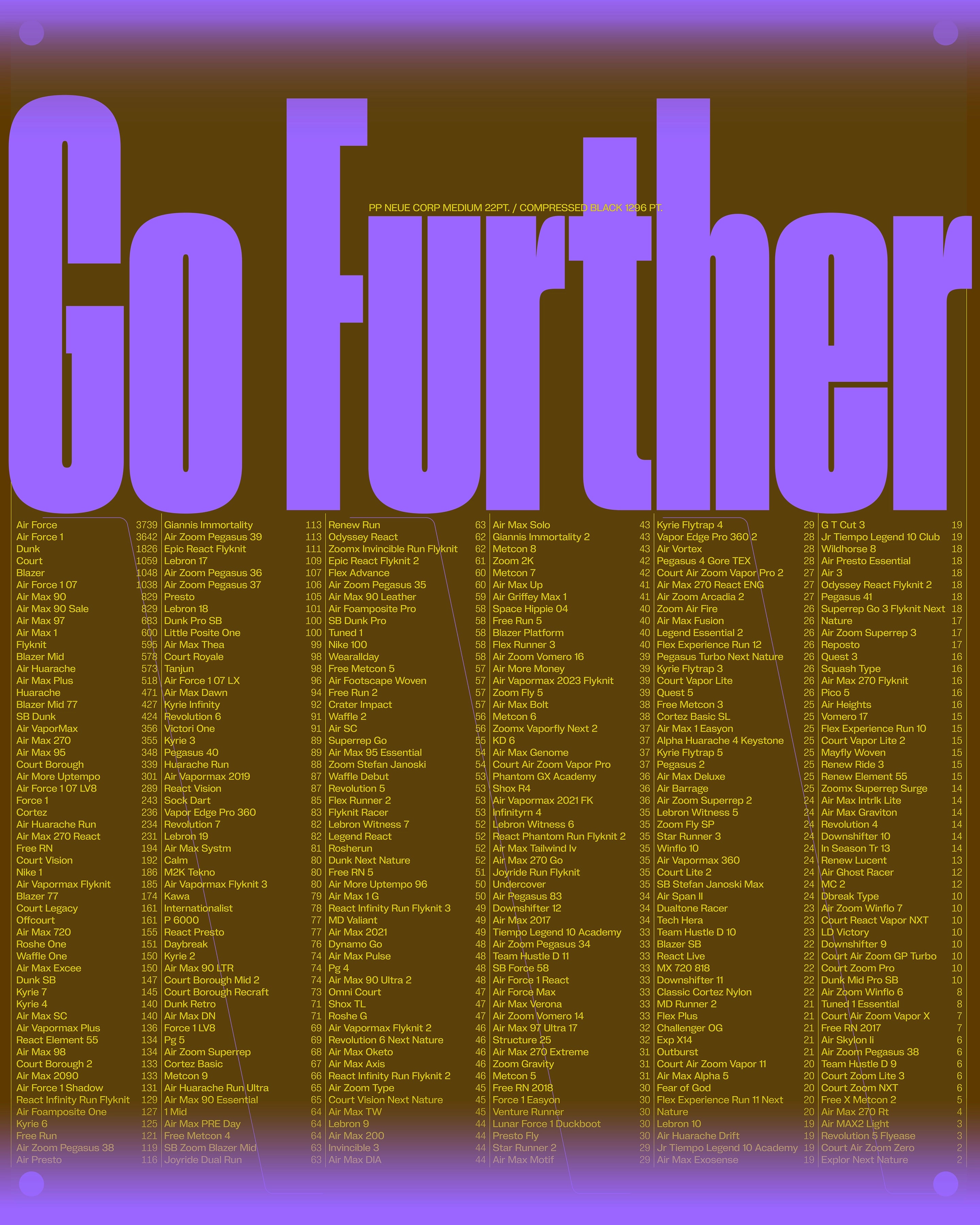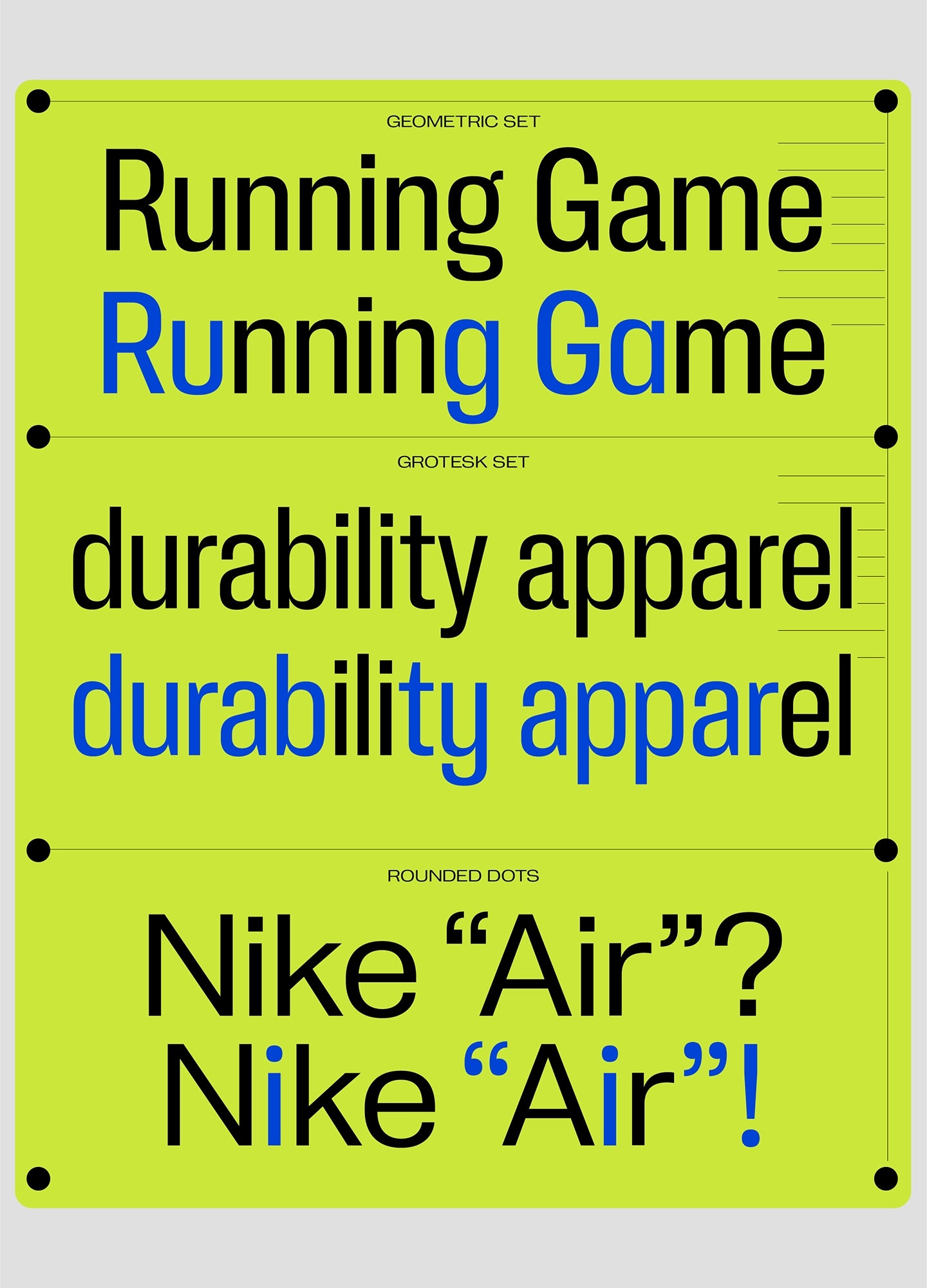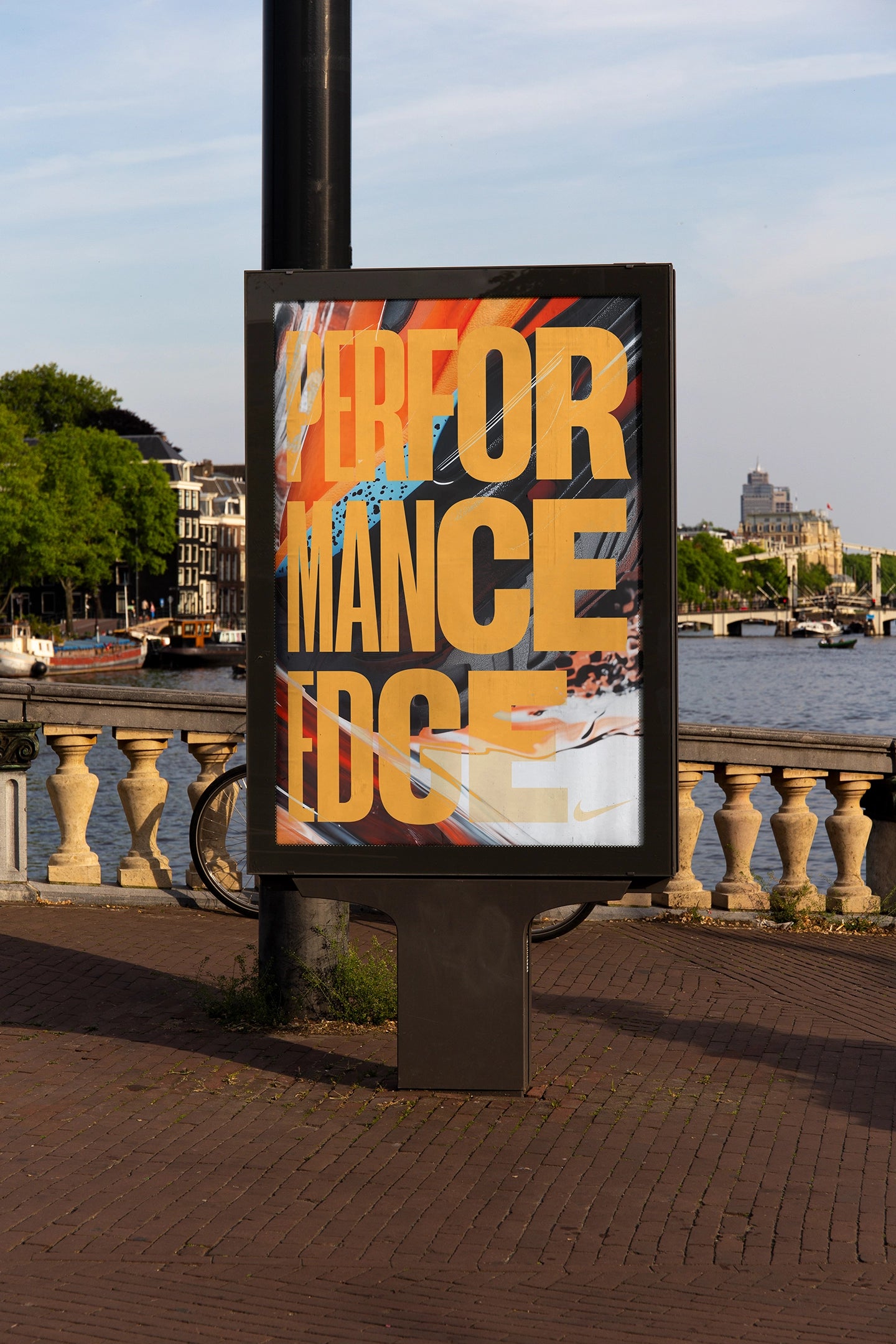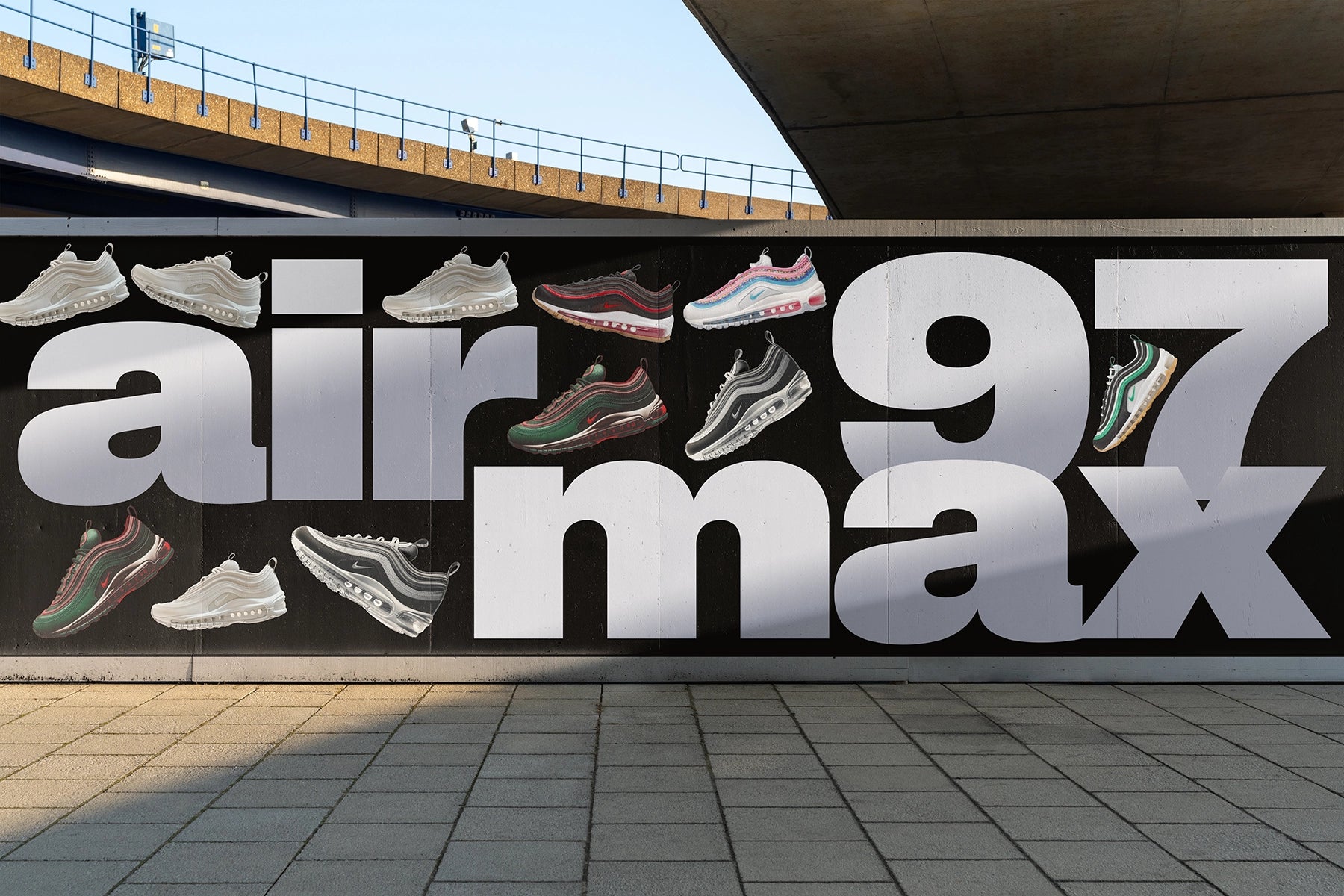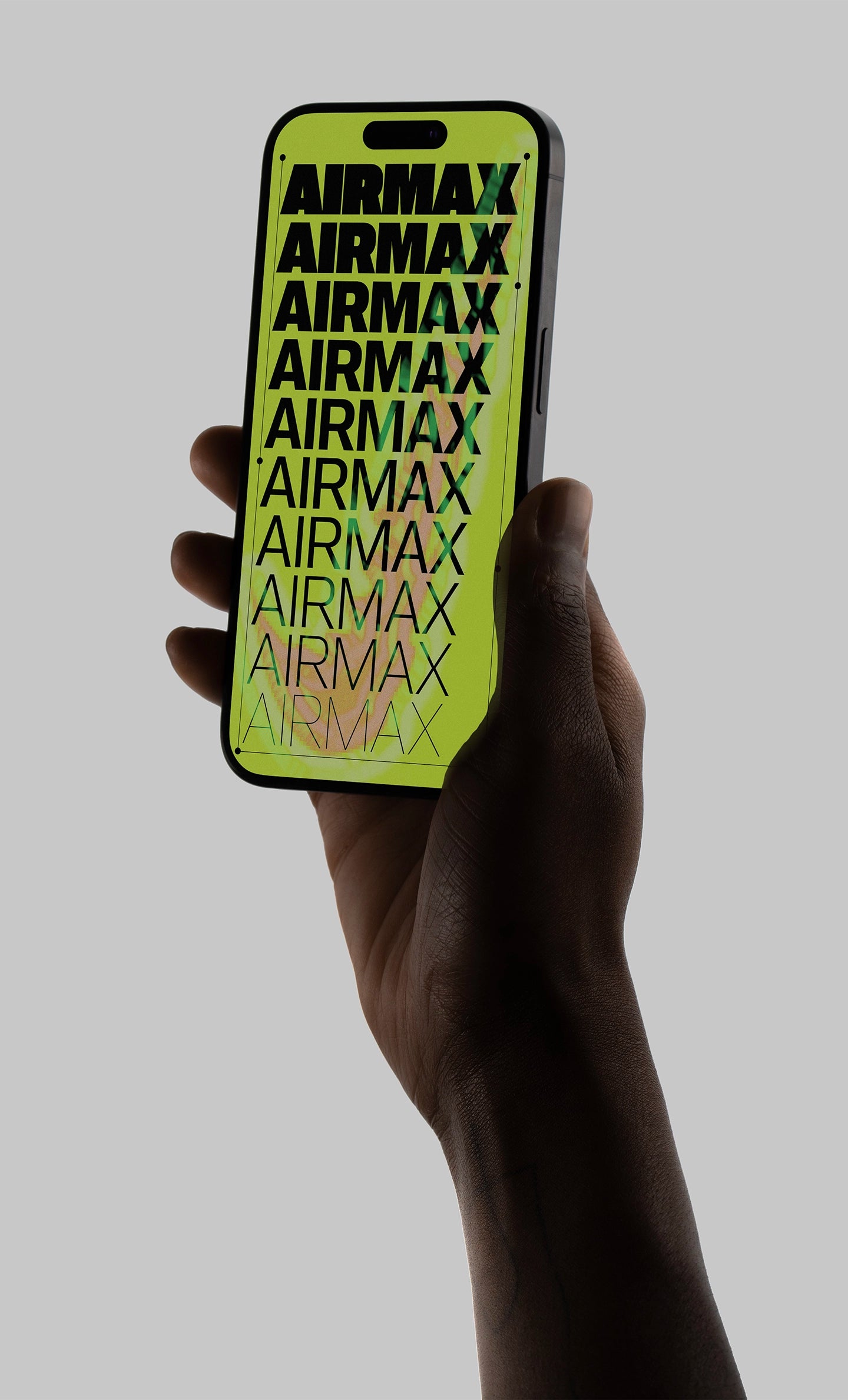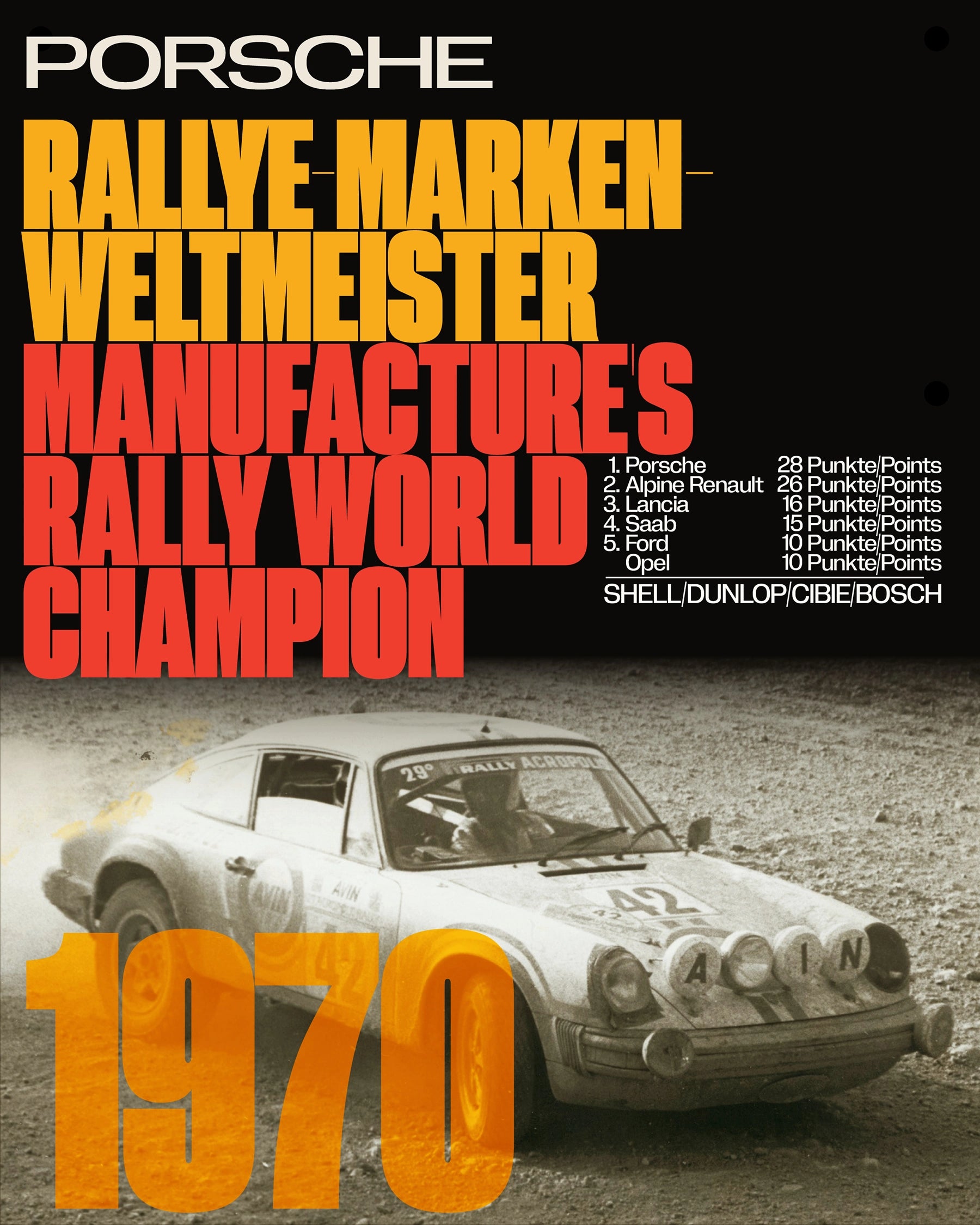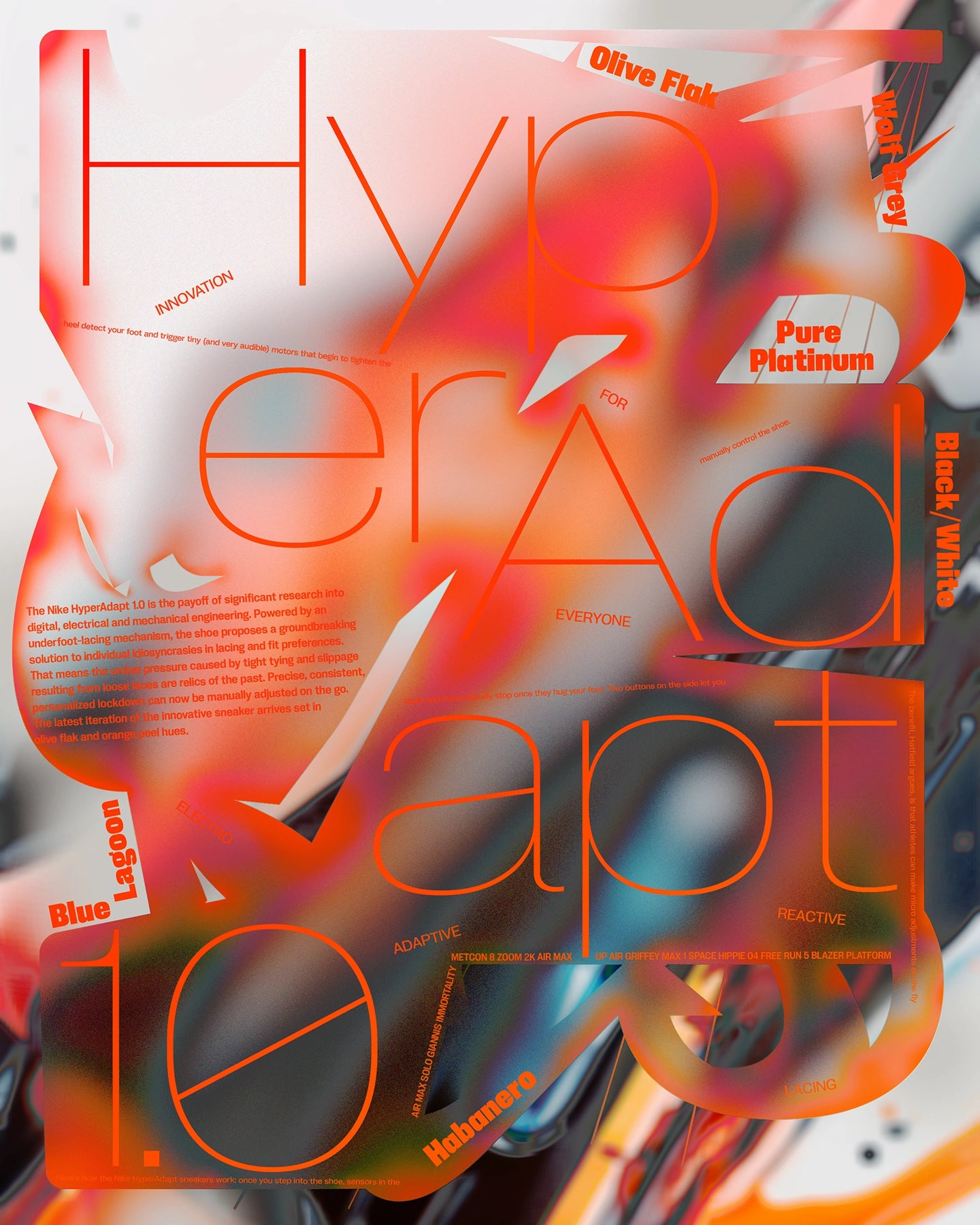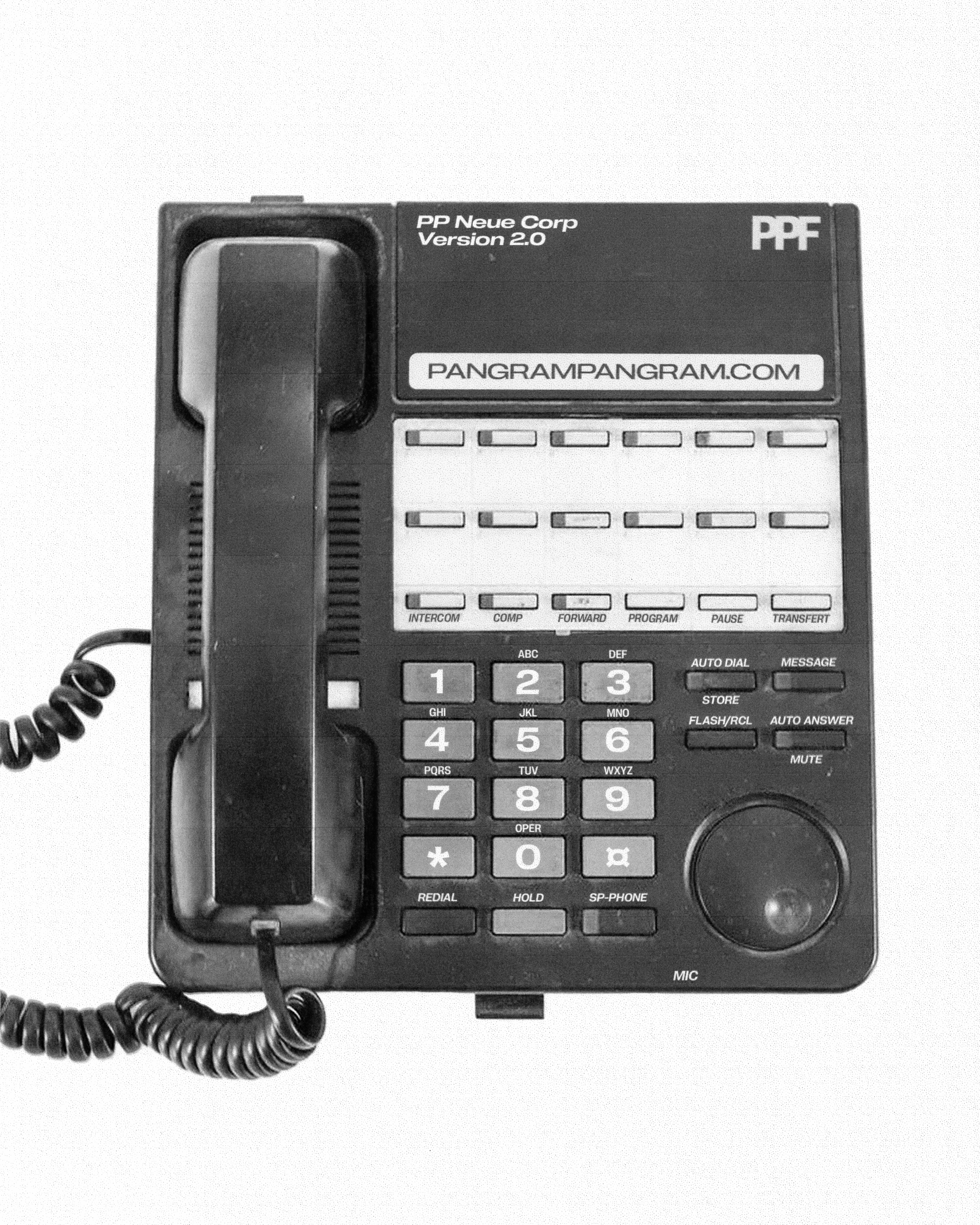
Neue Corp
It combines the eccentricity of old wood type with the precision of neo-grotesques.
Ultimate tool for advertising.
Neue Corp is a versatile typeface, crafted to be the ultimate creative tool for any advertising, marketing, or digital endeavor. Designed with a broad range of widths and weights, it empowers designers and studios to adapt it to any context, from bold headlines to refined body text.
Balancing character with neutrality, it combines the eccentricity of old wood type with the precision of neo-grotesques. The Black and Condensed styles are inspired by classic Hamilton Mfg. Co. typefaces, while the wide Bolds are influenced by Helvetica Extended. Regular styles draw from Univers but with softened details for a friendlier tone.
Alternate stylistic sets offer even more flexibility: one set makes the typeface more geometric and neutral, while the other brings out a bold, grotesque character with added spurs. With a design spectrum ranging from subtle Thin to powerful Black, and from narrow Compressed to bold Extended, this typeface is ready to elevate any project with style and precision.
8 families with 20 styles each (160 Styles Total) with 1049 Glyphs each
Including Italics and Cyrillic Support